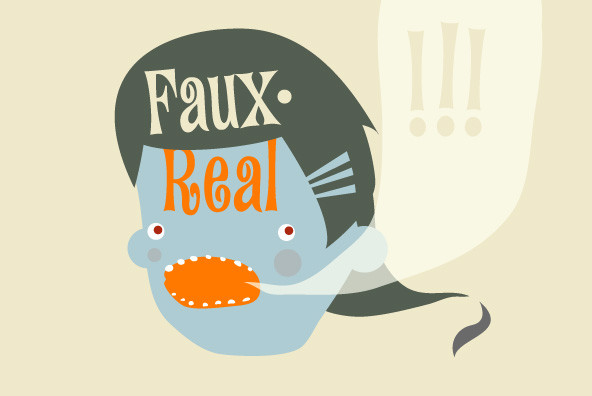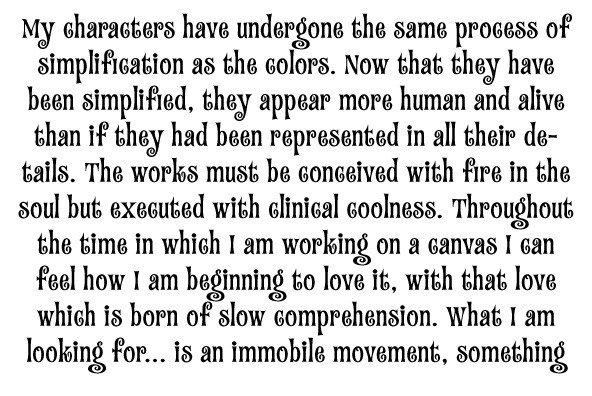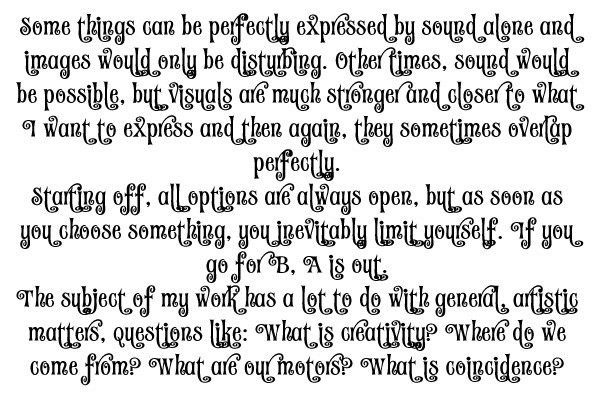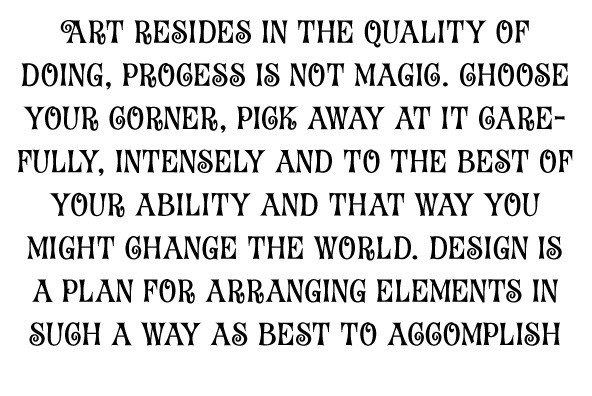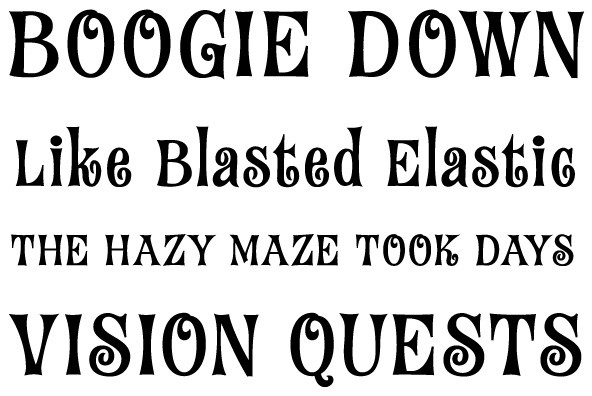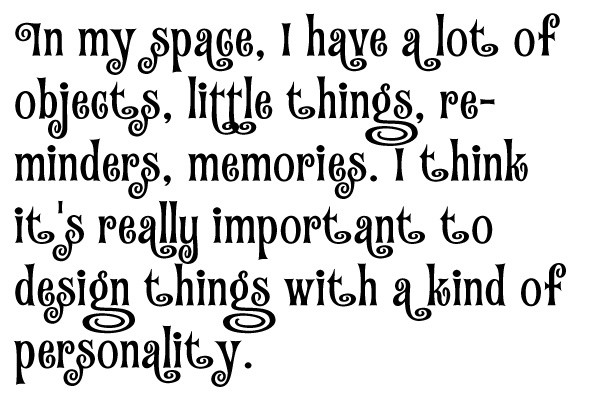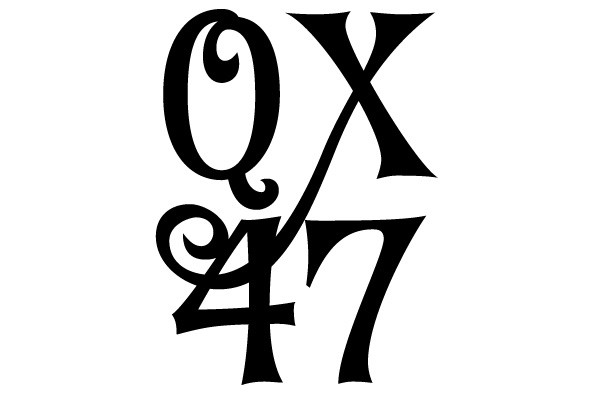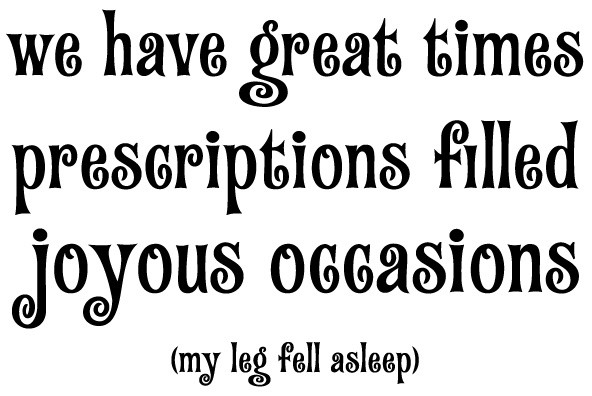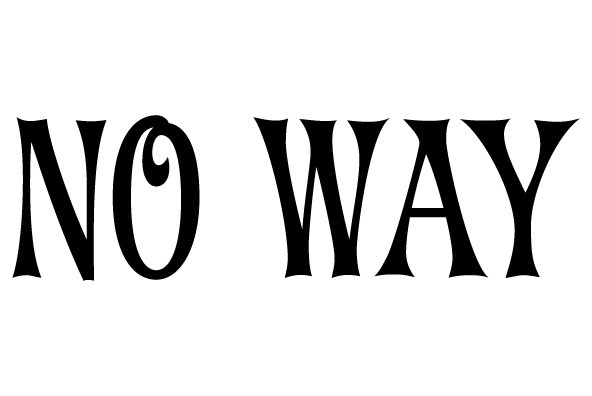
Fantini Pro
Fantini is the revival and elaborate update of a typeface called Fantan, made in-house and released in 1970 by a minor Chicago film type supplier called Custom Headings International. In the most excellent tradition of seriously-planned American film faces back then, CHI released a full complement of swashes and alternates to the curly art nouveau letters. Fantan didn't fare much among the type scenes big players back then, but it did spread like electricity among the smaller ones, the mom-and-pop type shops. But by the late 1980s, when film type was giving up the ghost, most smaller players in the industry were gone, in some cases along with little original libraries that existed nowhere else and became instant rarities on their way to be forgotten and almost impossible to resurrect for future technologies.
Fantini is the fun and curly art nouveau font bridging the softness and psychedelia of the 1960s with the flirtatious flare of the 1970s like no other face does. Elements of psychedelia and funk flare out and intermix crazily to create cool, swirly letters packed with a lot of joy and energy. This is the kind of American art nouveau font that made its comeback in the late 20th century and is now a standard visual in the branding drive of almost every consumer product, from coffee labels to book and music covers to your favorite sugar or thirst-crunching fix.
Alongside Fantinis enormous main font come small caps and three extra fonts loaded with swashy alternates and variations on plenty of letters. All available in all popular font formats. Fantini Pro, the OpenType version, packs the whole she-bang in a single font of high versatility for those who have applications that support advanced type technologies.
In order to make Fantini a reality, Canada Type received original 2" film specimen from Robert Donona, a Clevelander whose enthusiasm about American film type has never faltered, even decades after the technology itself became obsolete. Keep an eye out for that name. Robert, who was computer-reluctant for the longest time, has now come a long way toward mastering digital type design.
Fantini is the fun and curly art nouveau font bridging the softness and psychedelia of the 1960s with the flirtatious flare of the 1970s like no other face does. Elements of psychedelia and funk flare out and intermix crazily to create cool, swirly letters packed with a lot of joy and energy. This is the kind of American art nouveau font that made its comeback in the late 20th century and is now a standard visual in the branding drive of almost every consumer product, from coffee labels to book and music covers to your favorite sugar or thirst-crunching fix.
Alongside Fantinis enormous main font come small caps and three extra fonts loaded with swashy alternates and variations on plenty of letters. All available in all popular font formats. Fantini Pro, the OpenType version, packs the whole she-bang in a single font of high versatility for those who have applications that support advanced type technologies.
In order to make Fantini a reality, Canada Type received original 2" film specimen from Robert Donona, a Clevelander whose enthusiasm about American film type has never faltered, even decades after the technology itself became obsolete. Keep an eye out for that name. Robert, who was computer-reluctant for the longest time, has now come a long way toward mastering digital type design.